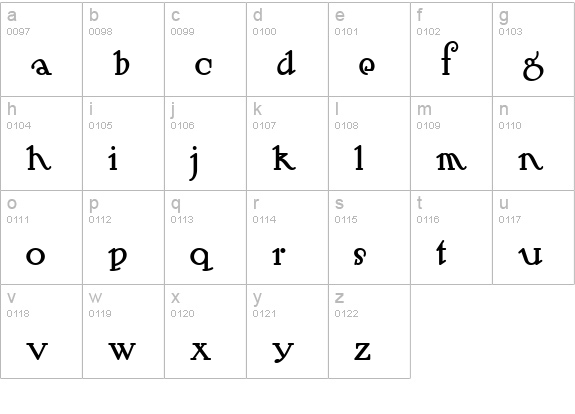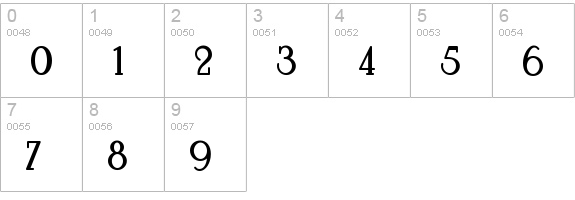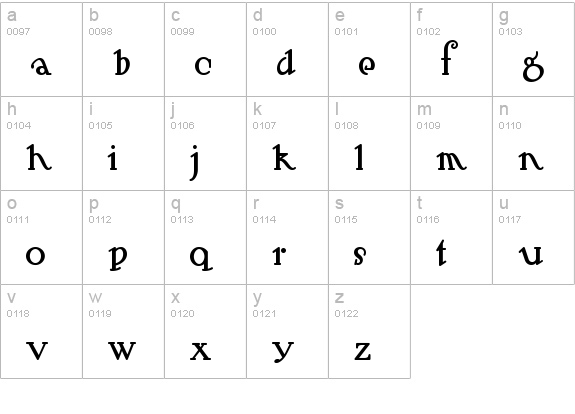
Hut Sut Ralston NF font is a captivating display typeface that exudes a vintage charm with its quirky and unique design. This font is perfect for adding a touch of nostalgia to your projects, whether it's for posters, branding, or any creative endeavor. Not only does Hut Sut Ralston NF font bring a retro flair to your designs, but it also offers versatility and readability, making it suitable for various applications. Its bold and distinctive letterforms are sure to make a statement and grab attention. The best part is that Hut Sut Ralston NF font is available for free download at FontsMarket.com, allowing you to easily access this delightful typeface and incorporate it into your projects without any hassle. So why wait? Add a touch of yesteryear to your designs with the charming Hut Sut Ralston NF font today!